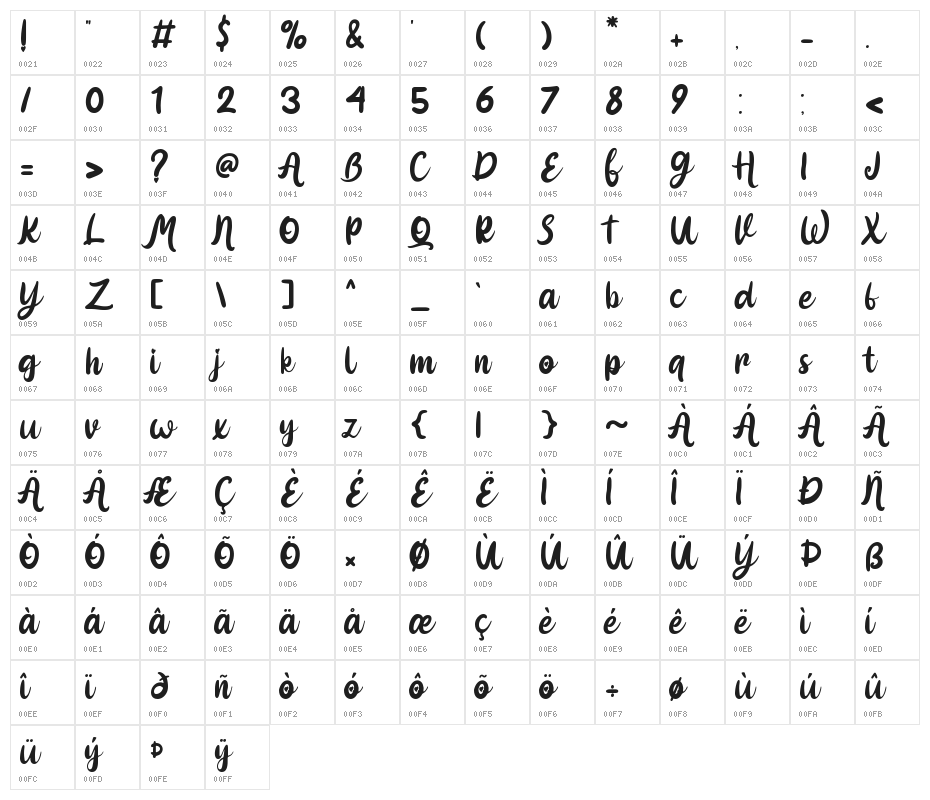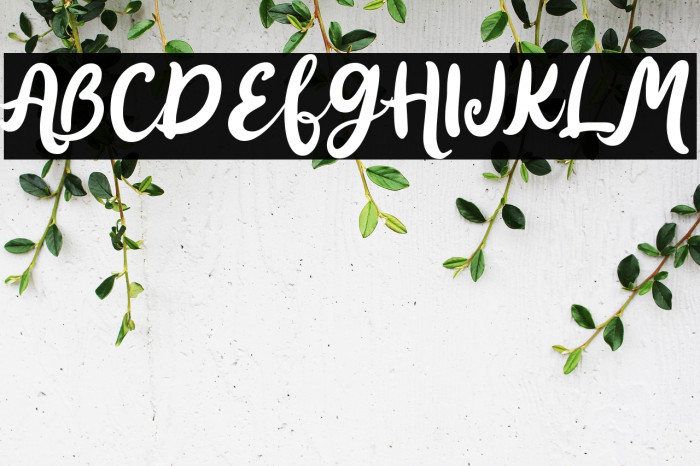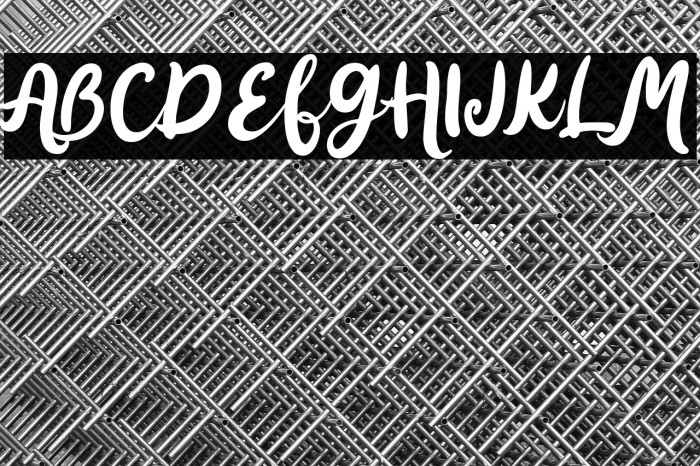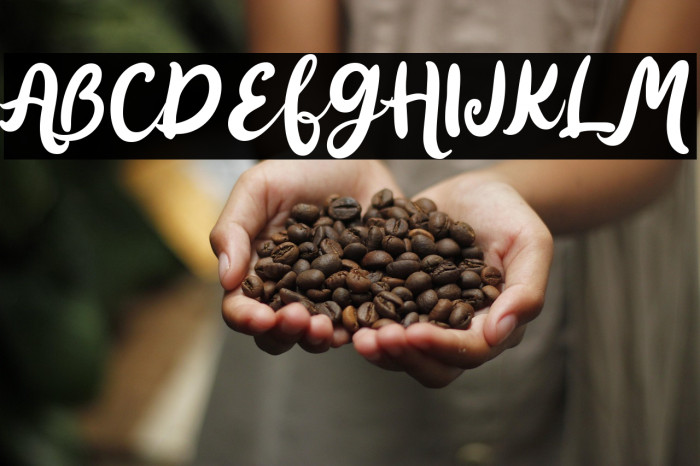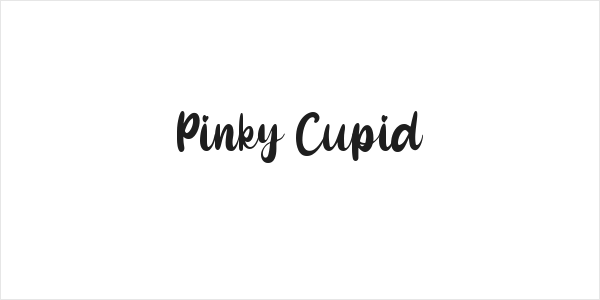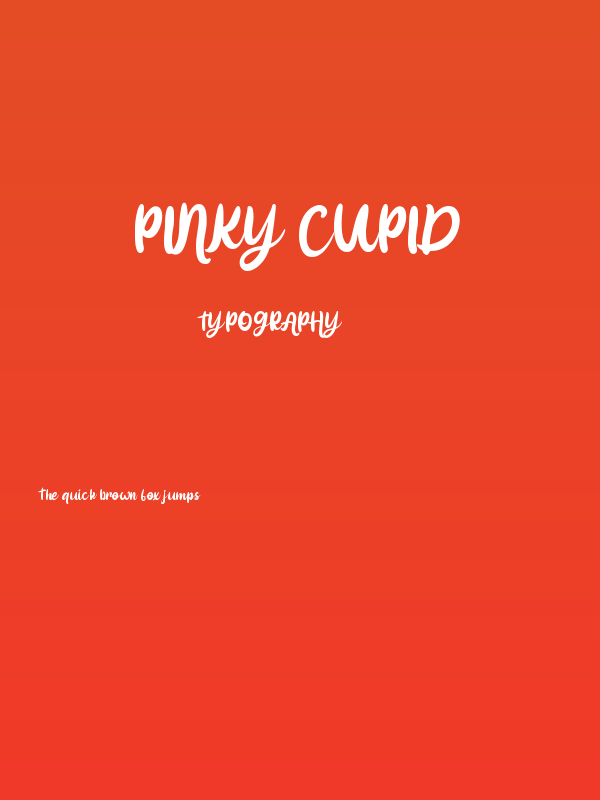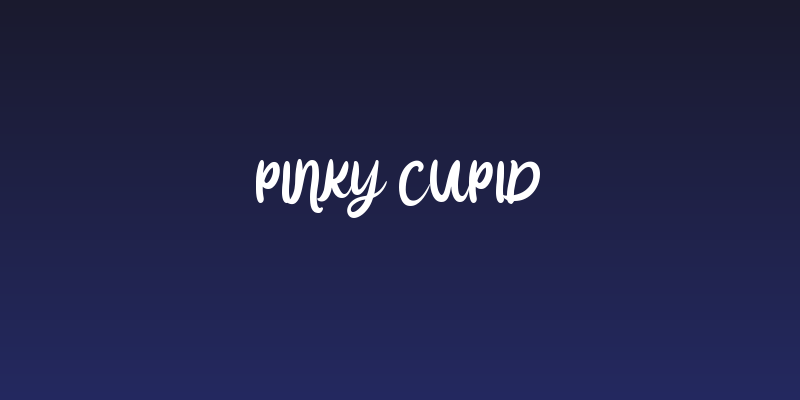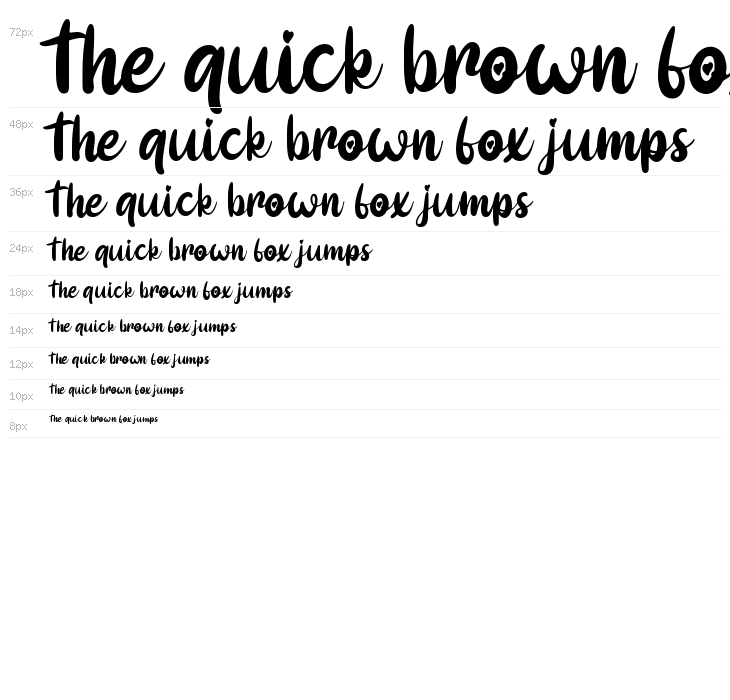
Pinky Cupid Font
Pinky Cupid Description
This playful and energetic script font features bold, flowing strokes that convey a sense of movement and personality. The uppercase letters are characterized by their sweeping curves and dynamic forms, while the lowercase letters maintain a consistent rhythm with rounded, friendly shapes. The numerals and special characters are equally expressive, adding to the font's overall charm. The font's style is reminiscent of casual handwriting, making it approachable and lively. Its thick strokes and smooth connections between characters create a cohesive and visually appealing appearance, perfect for projects that require a touch of whimsy and creativity.
| Proposed Projects | Ideal for greeting cards, invitations, playful branding, and social media graphics. |